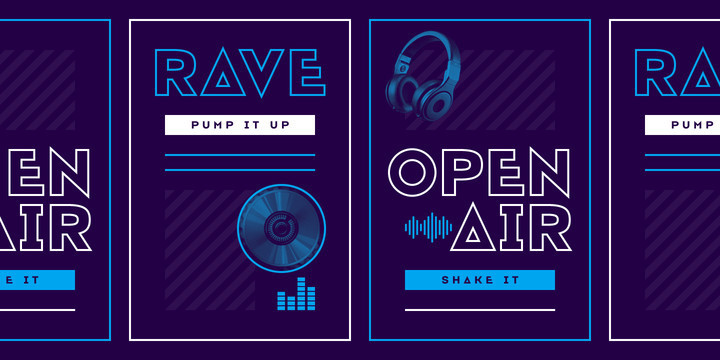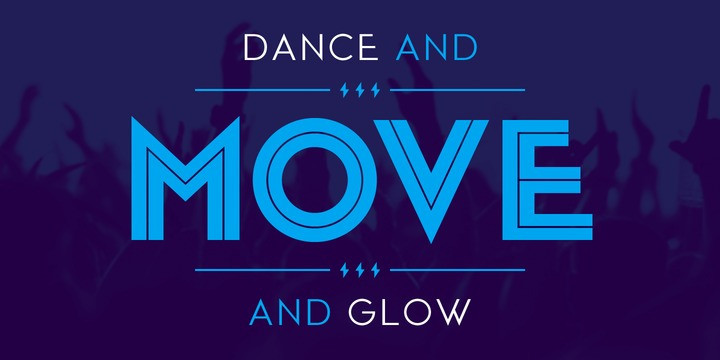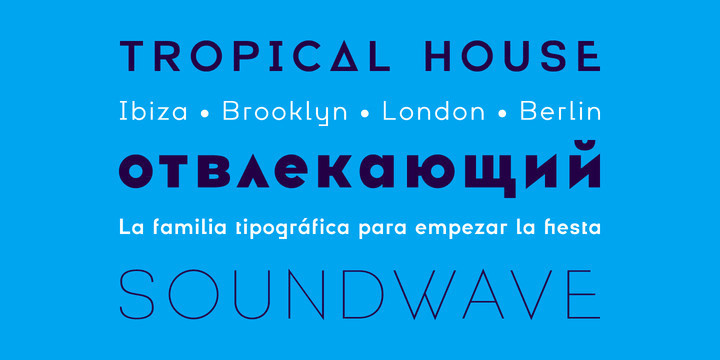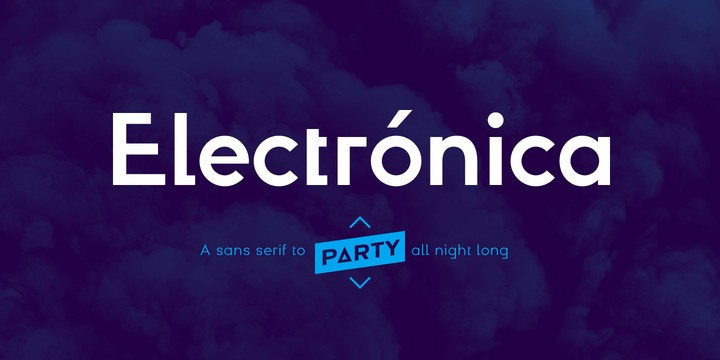
Electronica Font Family
Continued is a sans serif font family, designed and shared by Pablo Balcells. Introducing Electronica Sans Serif family. Electrónica font family has been designed for Graviton Font Foundry by Pablo Balcells in 2019. It is a rounded, geometric sans serif typeface with display details and sharp, playful shapes for a fun and laid back usage. Electrónica has been conceived to be most suitable for logos, headlines and display design pieces as well as short length text blocks.